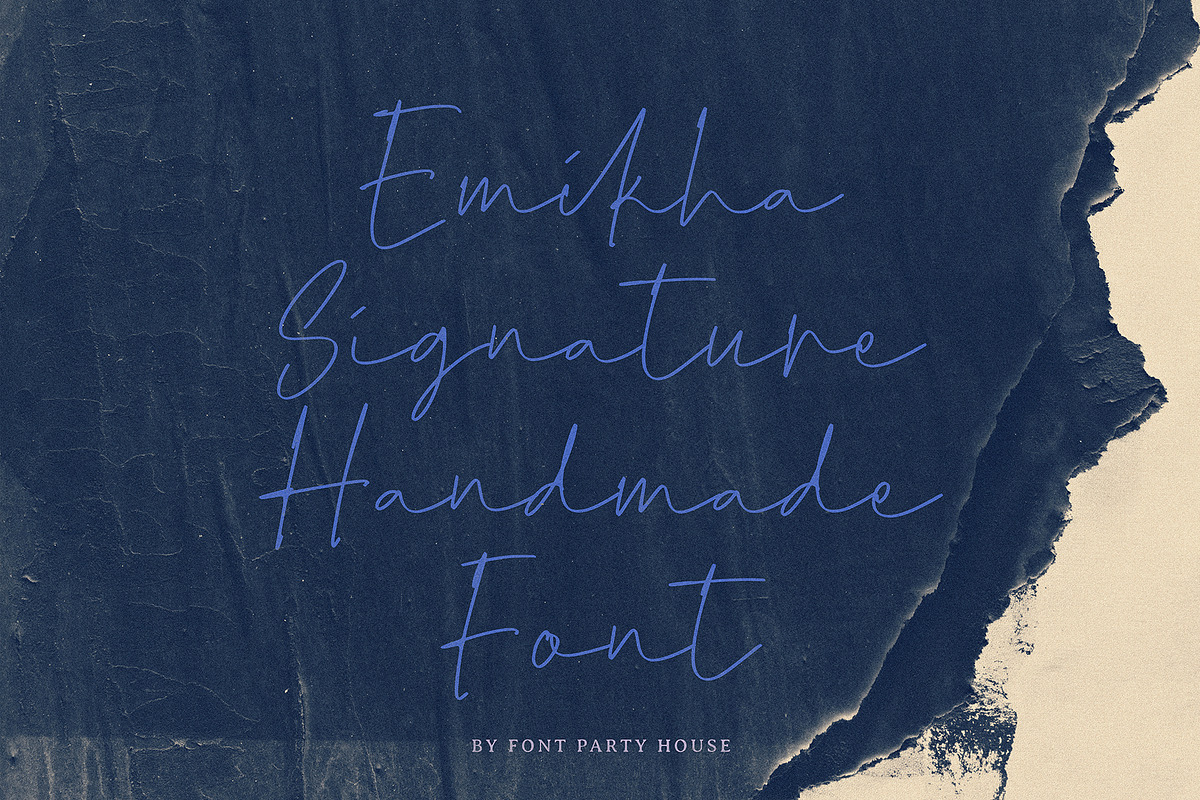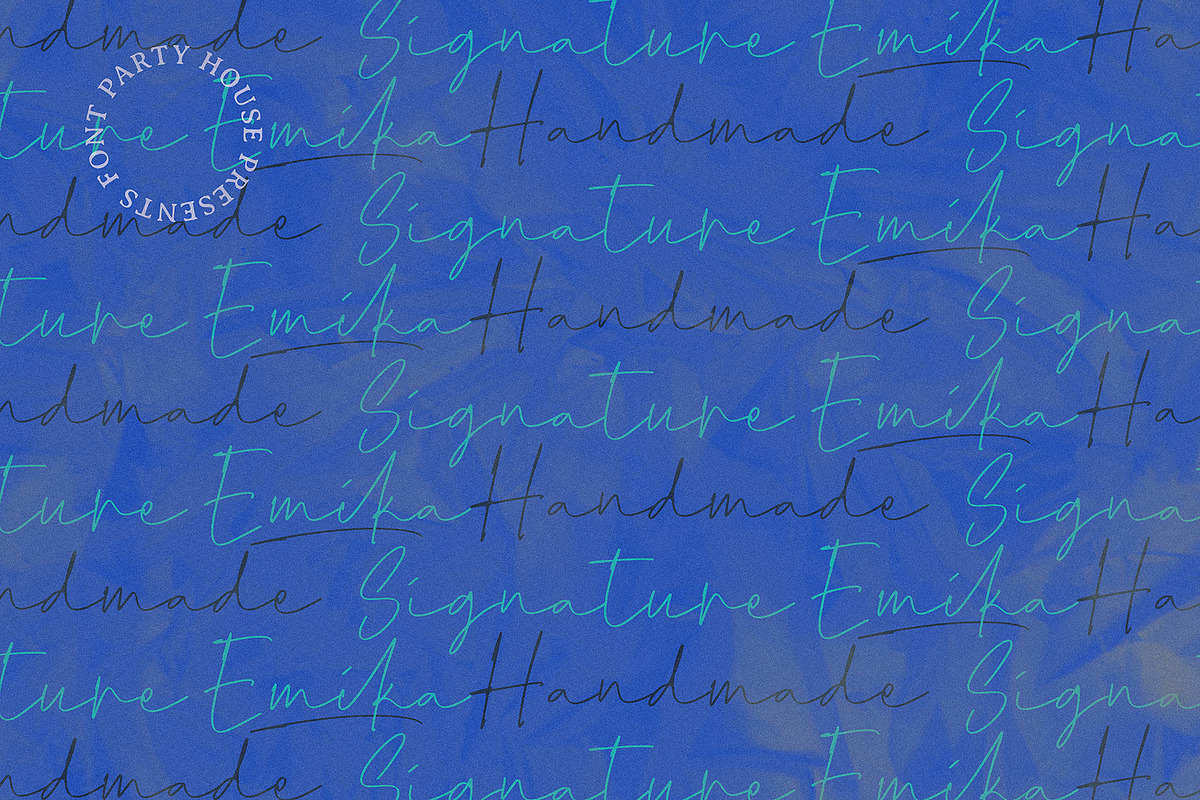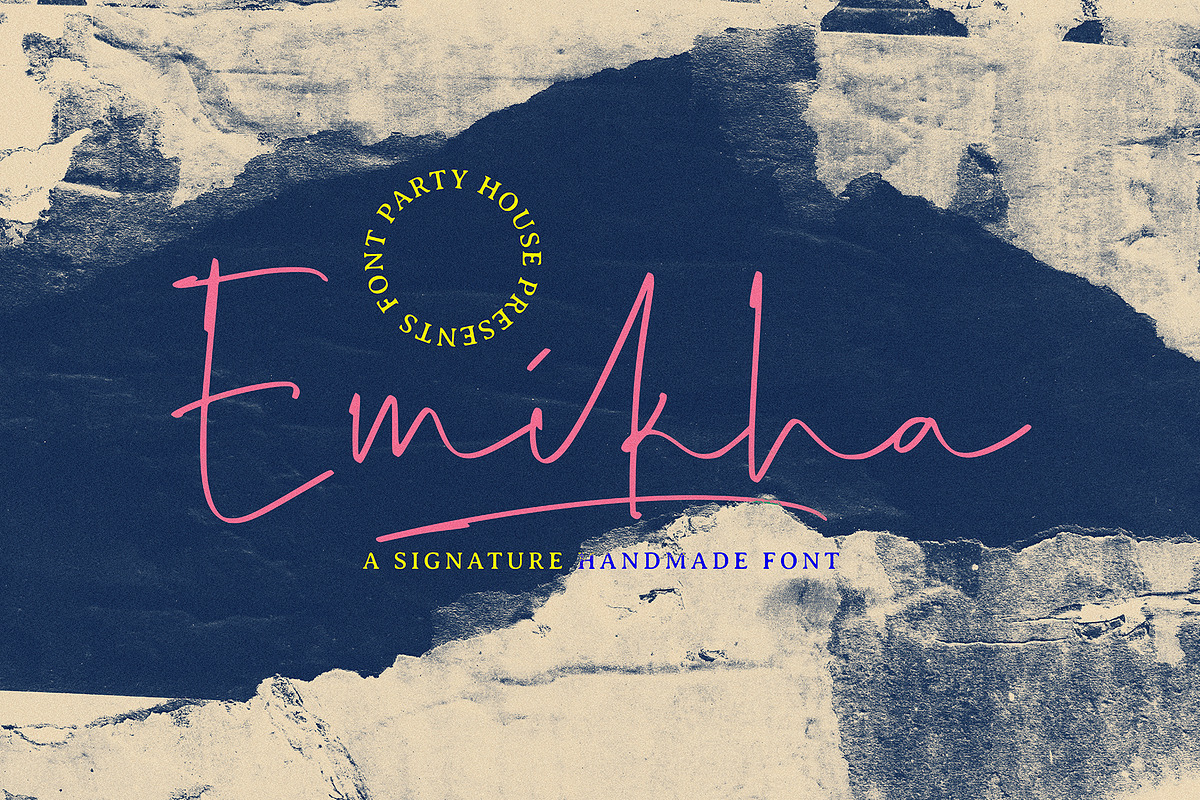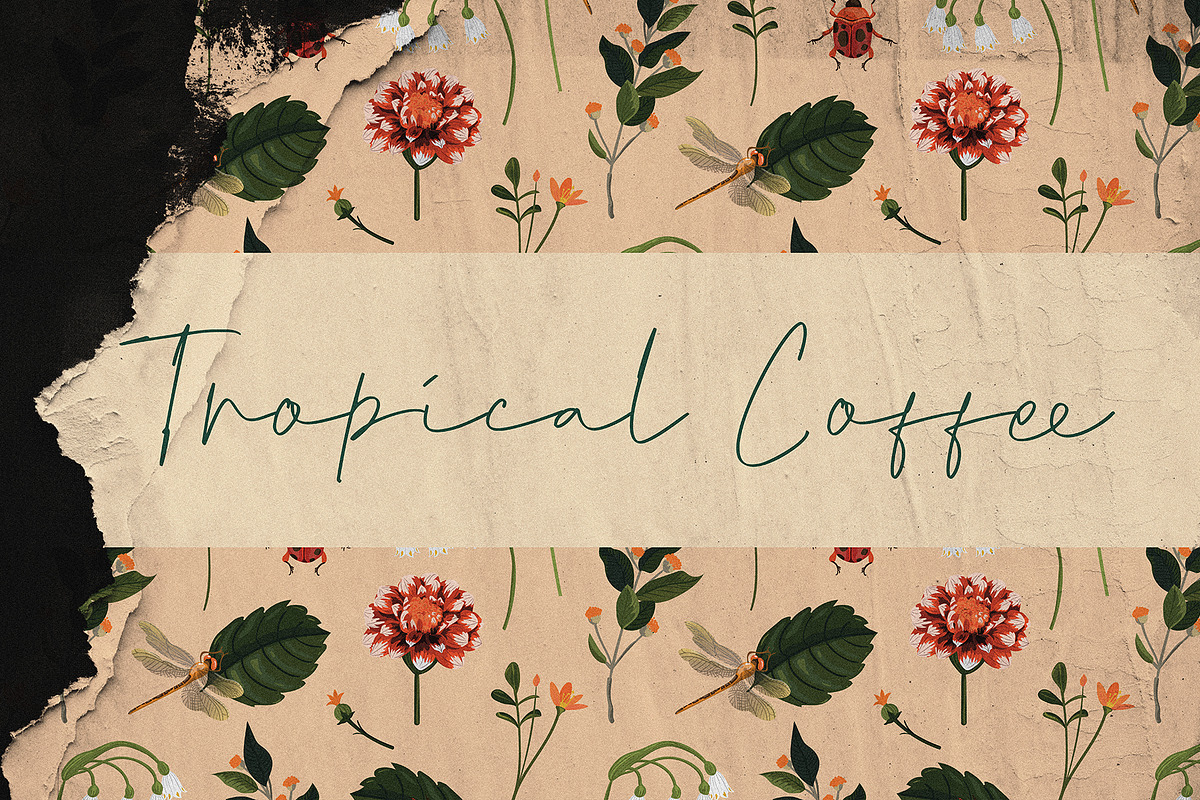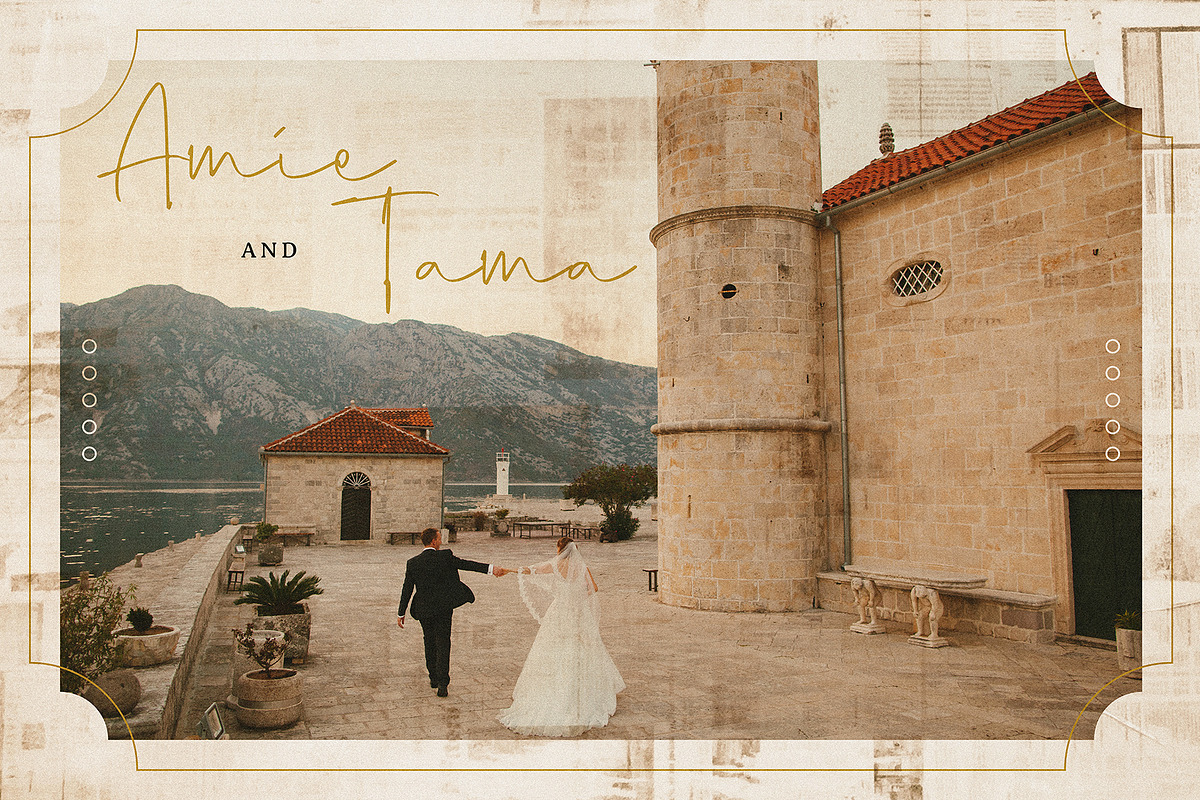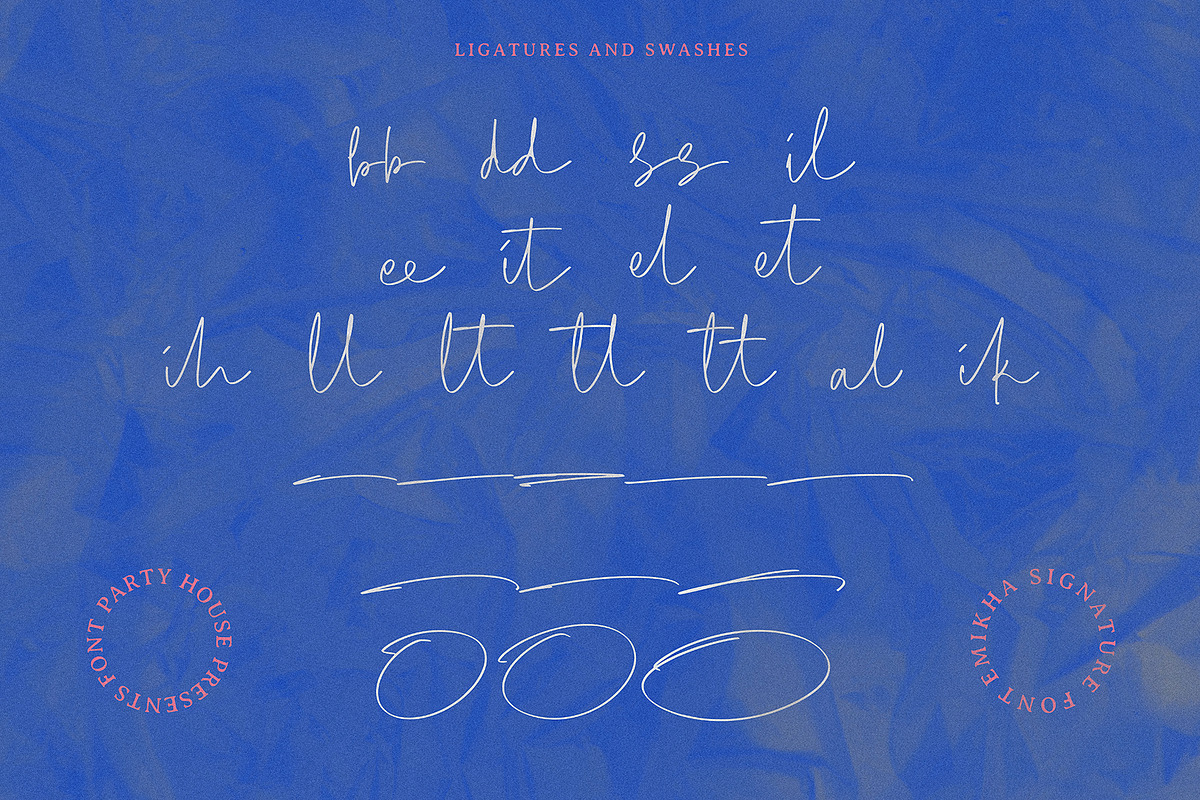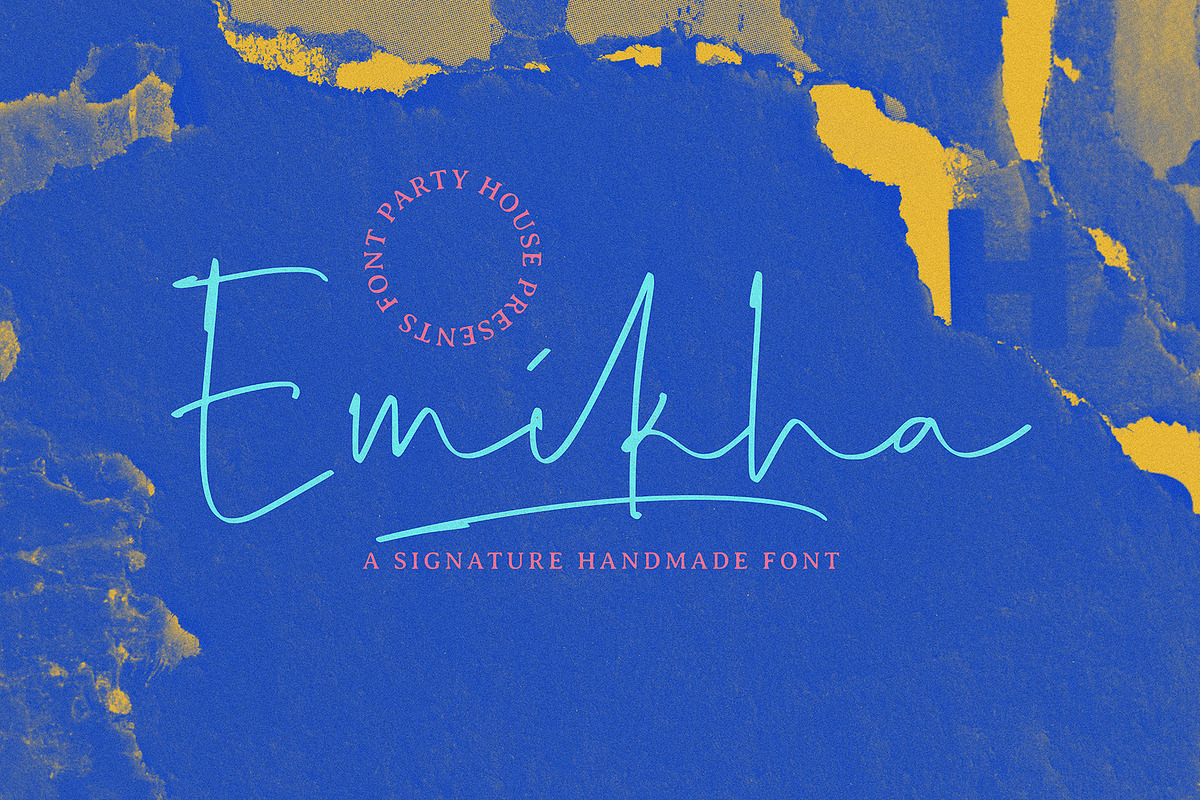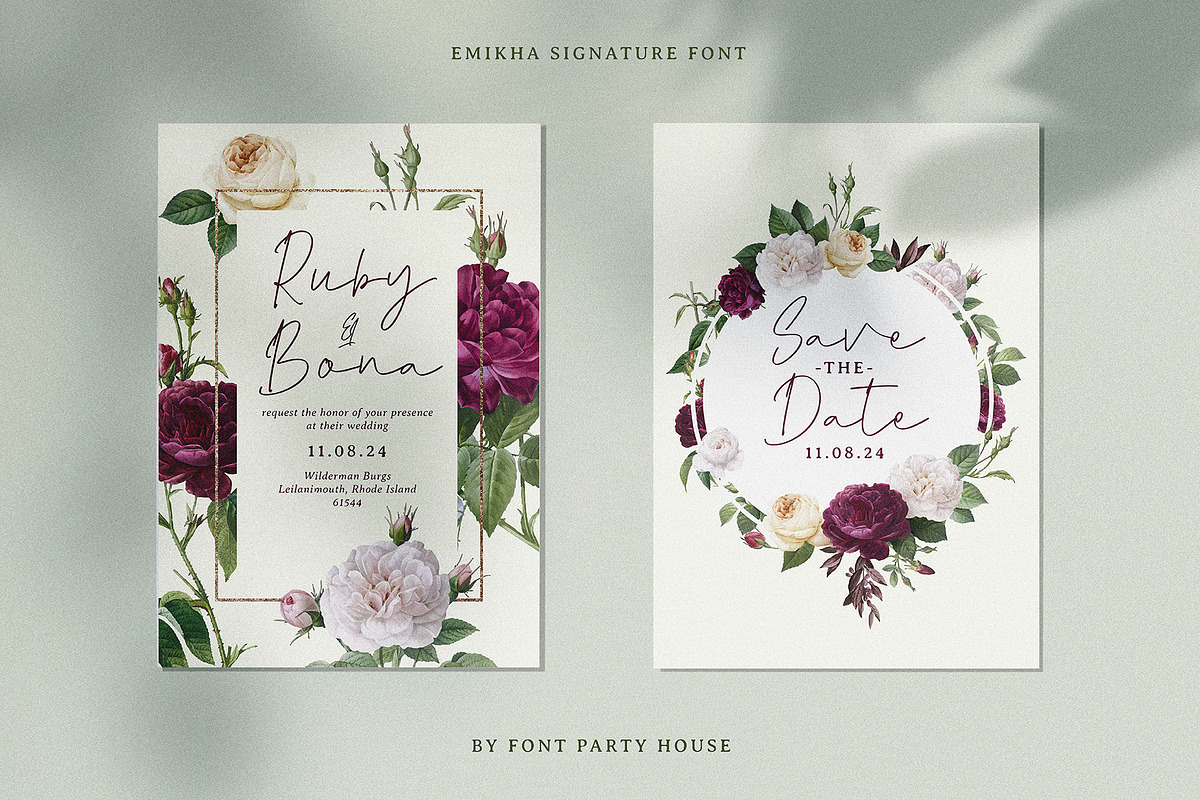
Emikha - A Signature Handmade Font
Emikha a Signature Handmade Font is a font that has unique characteristics. This font is very powerful and suitable for use in creating logos, branding, headlines, labels, packaging, magazines, and much more.